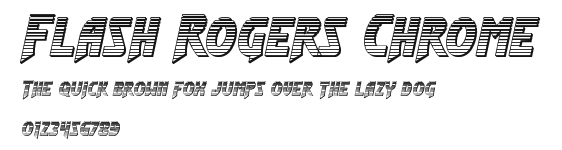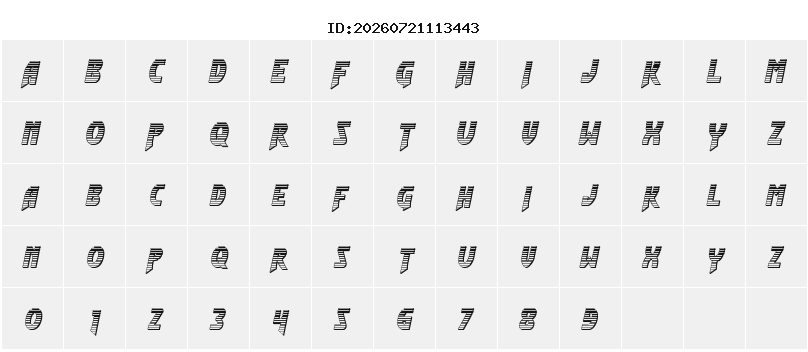
• Font Name: Flash Rogers Chrome
About Flash Rogers Chrome.ttf
Flash Rogers Chrome.ttf is a modern, elegant sans-serif font designed for ultimate readability and visual harmony. Perfect for branding, headlines, web design, and print materials.